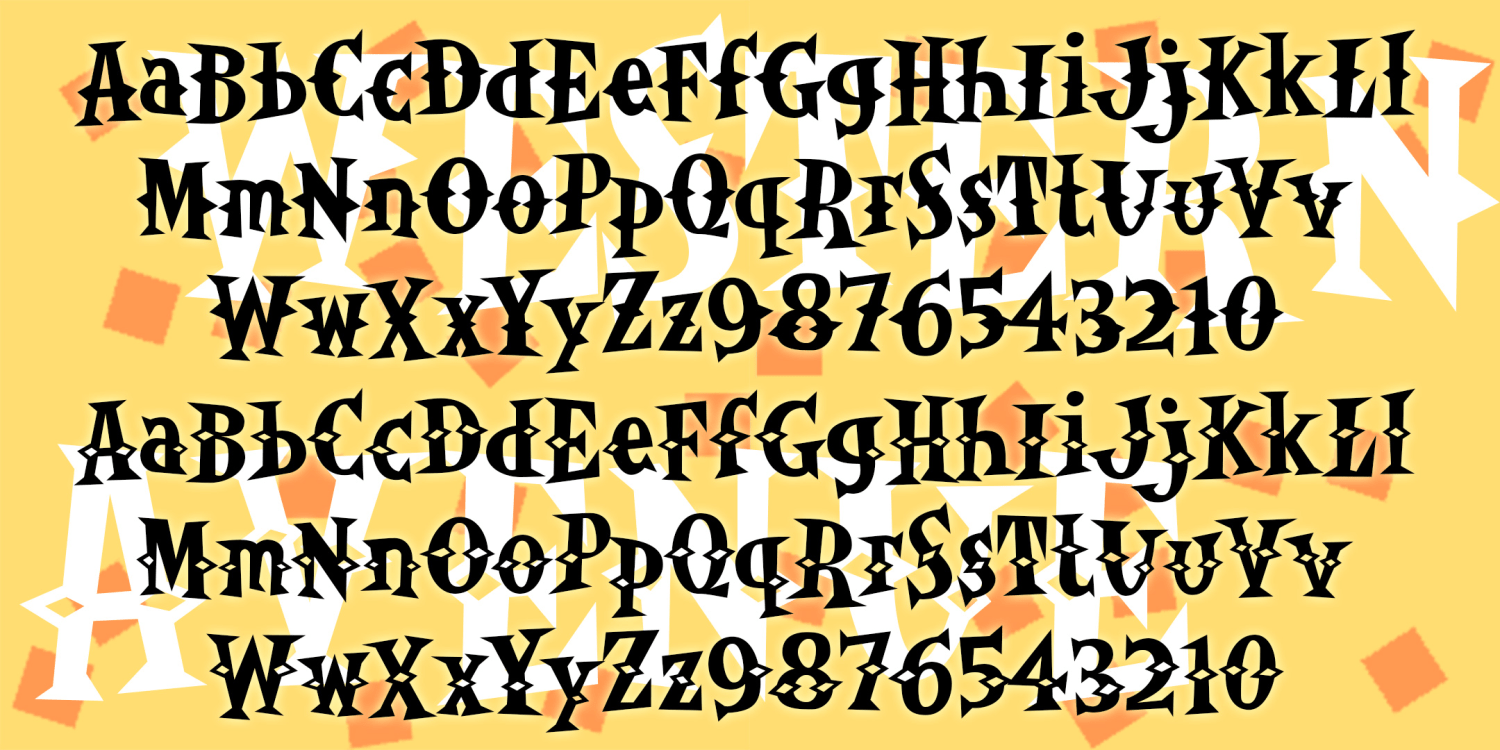
HomeFont BrosRetro (1936-1965)Western Avenue Retro (1936-1965)Wacky Western Avenue FacebookXPinterestWhatsApp 1 of 1 About Western Avenue WESTERN AVENUE is fun font with jazzy triangular serifs and spurs for lots of retro fun. It was inspired by a 1950s album cover and comes in black and white diamond spur varieties.  DOWNLOAD ON FONT BROSThis font is sold and delivered by Font Bros. Font Canyon may earn a commission if you buy through this link. People also explored Nobody Font Artistic Draft Font Enchanting Script Font Christmas Background Font Keilyuan Font Incipient Font Coming Font Bellie – A Handwritten Font Camper 222 0 TagsWestern Avenue Font Previous articleGardenyNext articleProsciutto LEAVE A REPLY Cancel reply Comment: Please enter your comment! Name:* Please enter your name here Email:* You have entered an incorrect email address! Please enter your email address here Website: Save my name, email, and website in this browser for the next time I comment. Personal Use Free Vogue Font Personal Use Free Read more about this font Krabuler Personal Use Free Read more about this font The Fourth Avenue Personal Use Free Read more about this font Jilliant Personal Use Free Read more about this font BLOG 5 Fonts That Will Dominate Design Trends in 2026 5 Fonts for 2026 That Will Dominate Design Trends Typography plays a critical role in visual communication, and as we look ahead to 2026, it’s... Best Fonts for T-Shirt Design – Top 2025 Picks Elegant Wedding Invitation Fonts – Handwritten & Script Fonts Using Fonts in Digital Marketing: Tips to Strengthen Your Brand Identity